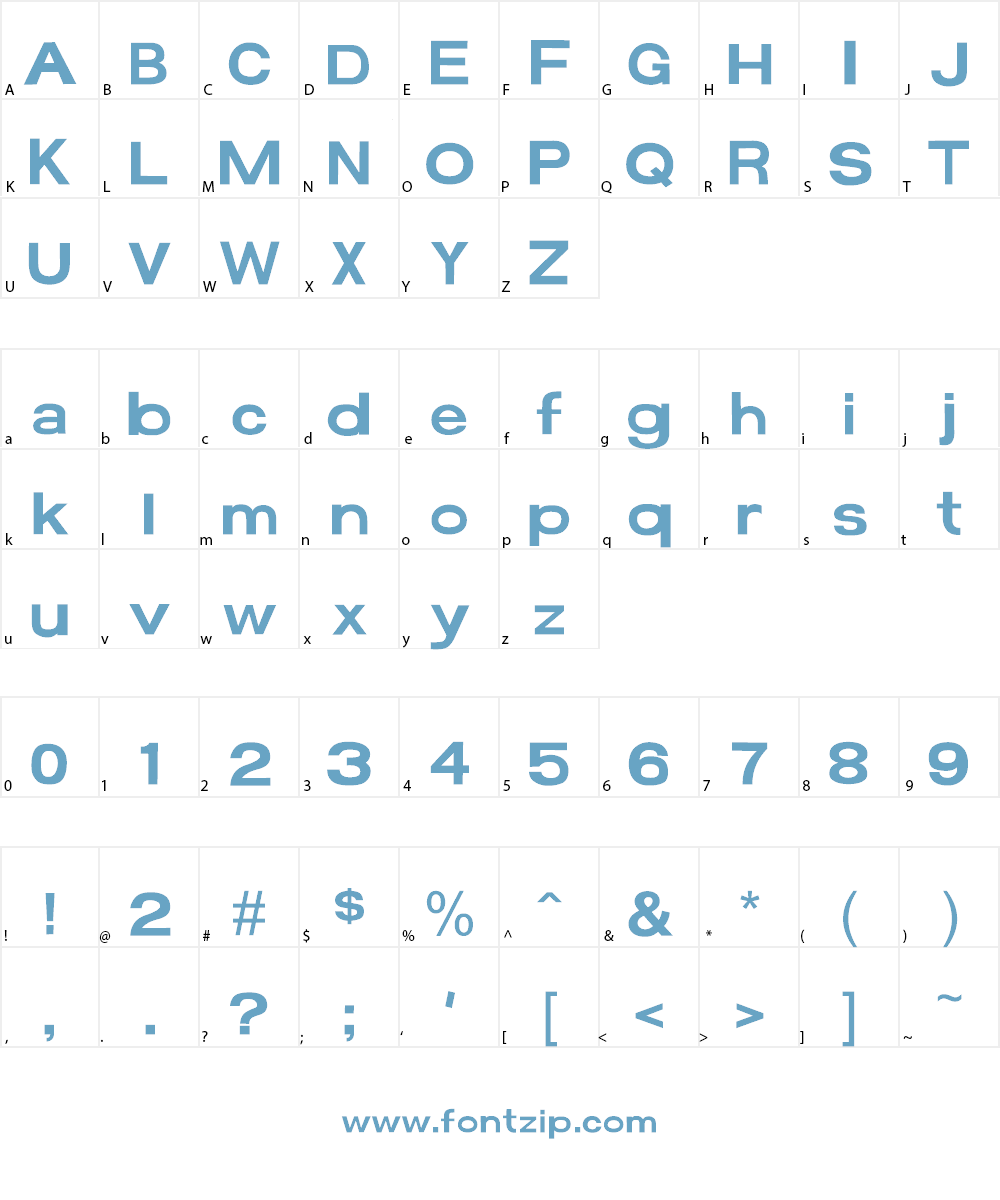
My go at 100% and perfectly remaking the Teapigs logo font, because the font for Teapigs is custom, but designed by Teapigs' team designer.
This font is way better than my old one.